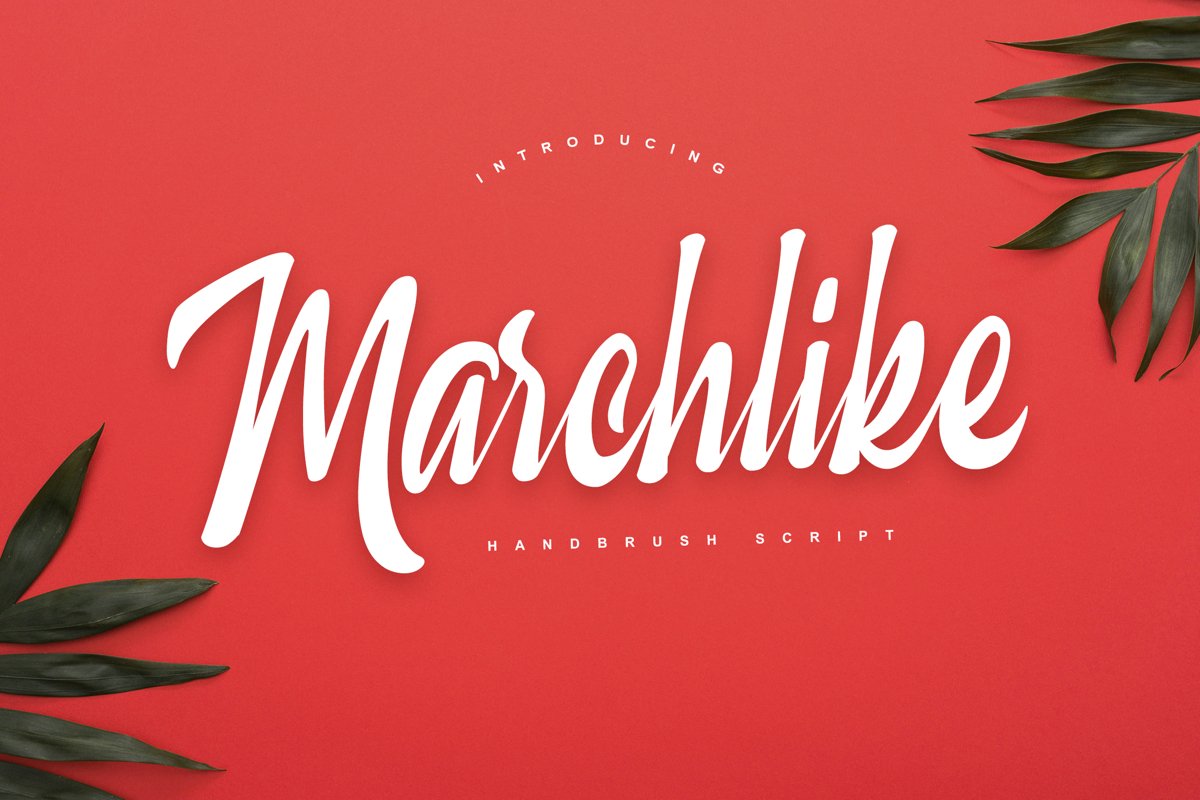
Marchlike
Here is my new font Marchlike.
Marchlike is consisting of a fashionable signature-style script make looks elegant, classy and touch of luxury and stylish. This font was created to look as close to a natural handwritten script as possible by including over 80 ligatures.
Marchlike is perfect for branding projects, logo, wedding designs, social media posts, advertisements, product packaging, product designs, label, photography, watermark, invitation, stationery and anything that you want.
With 180 Glyphs
6 Standard Ligatures
36 end Glyphs